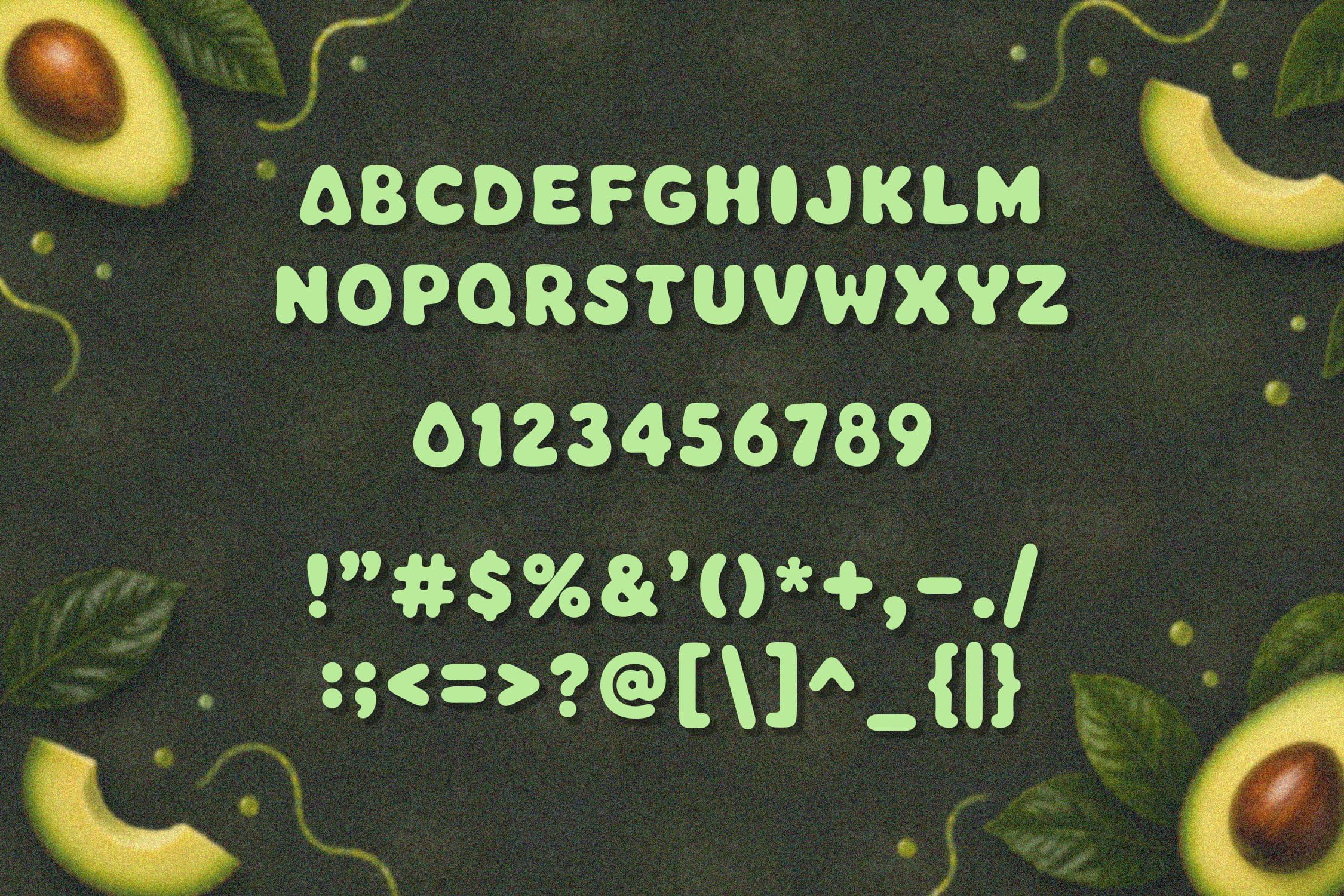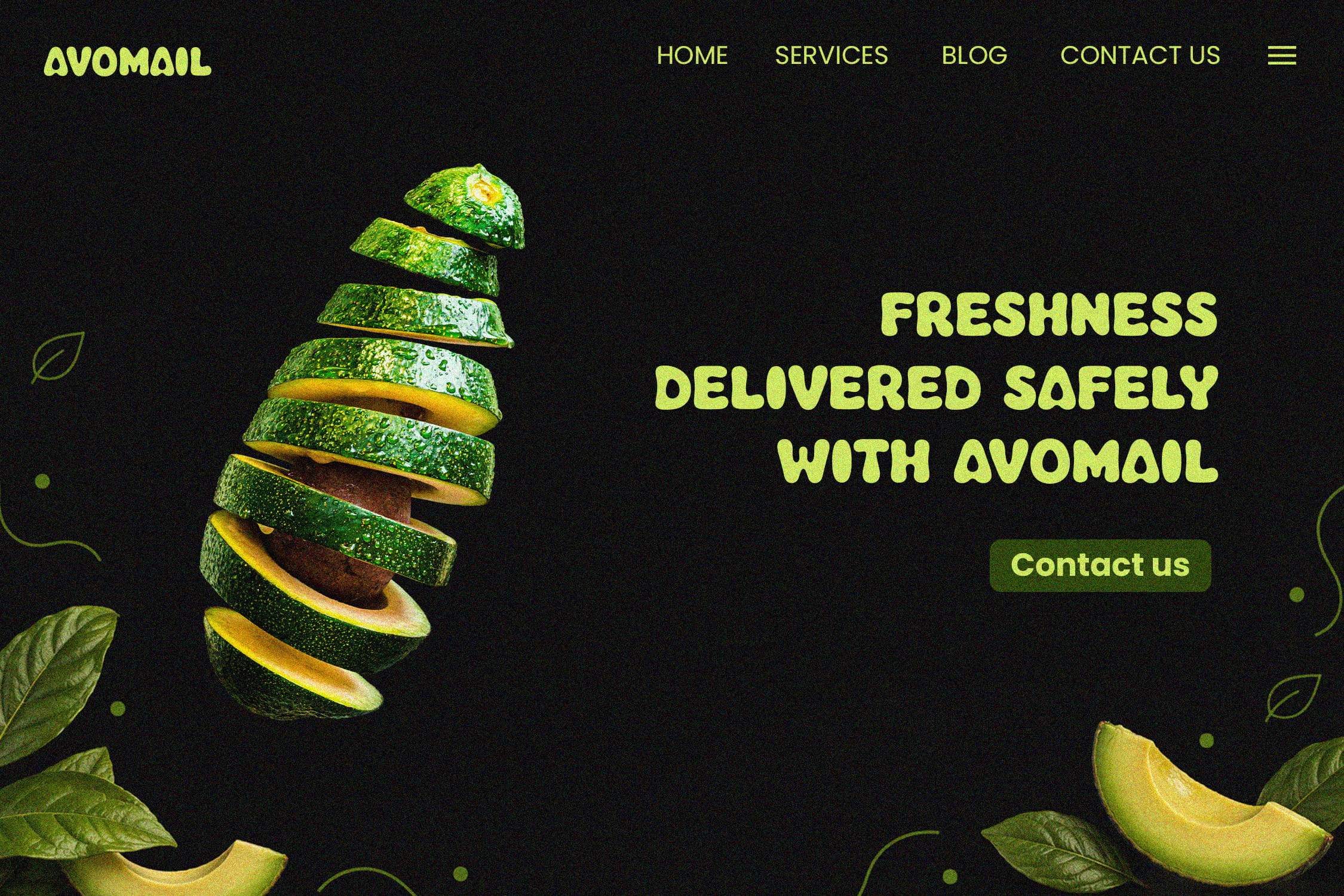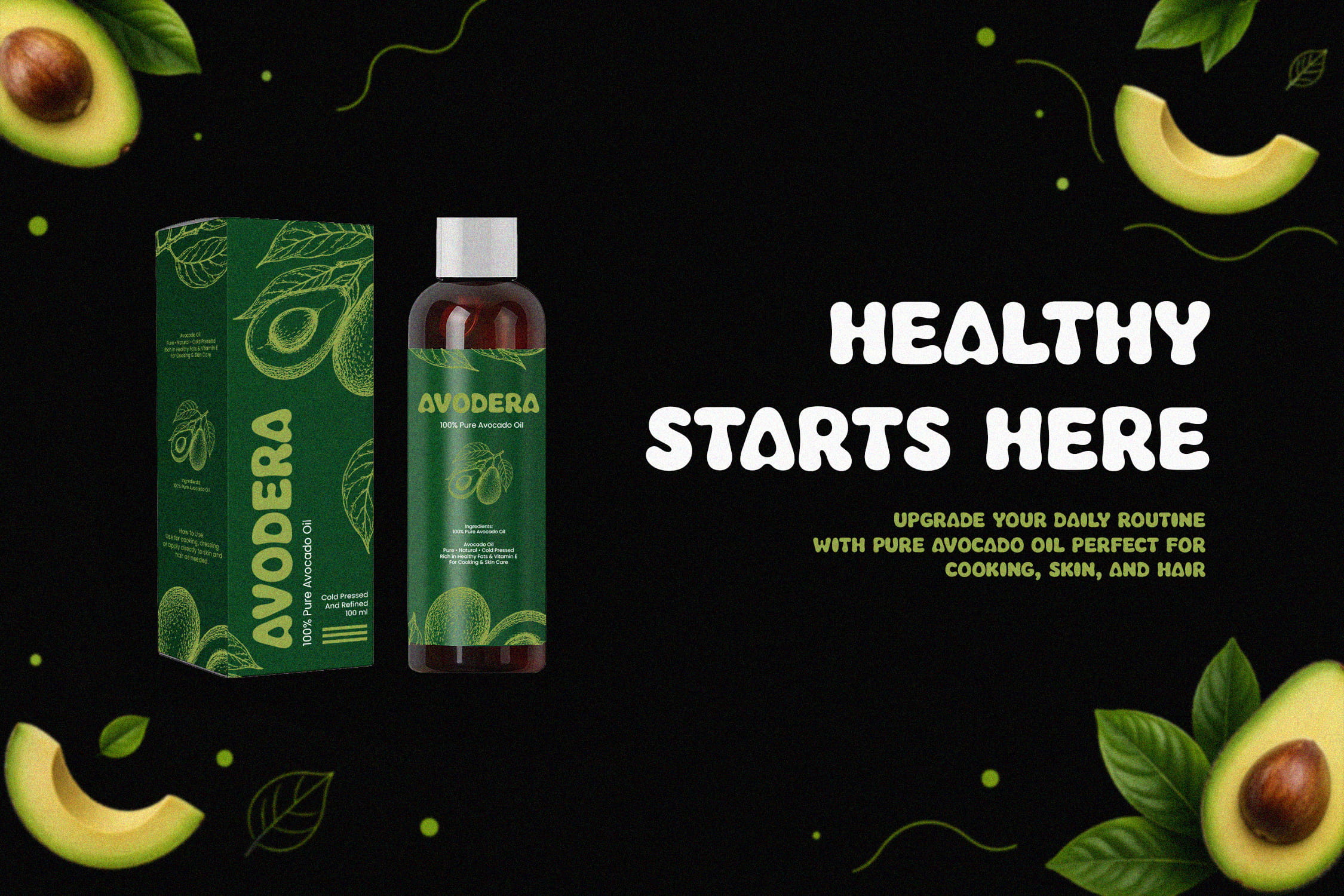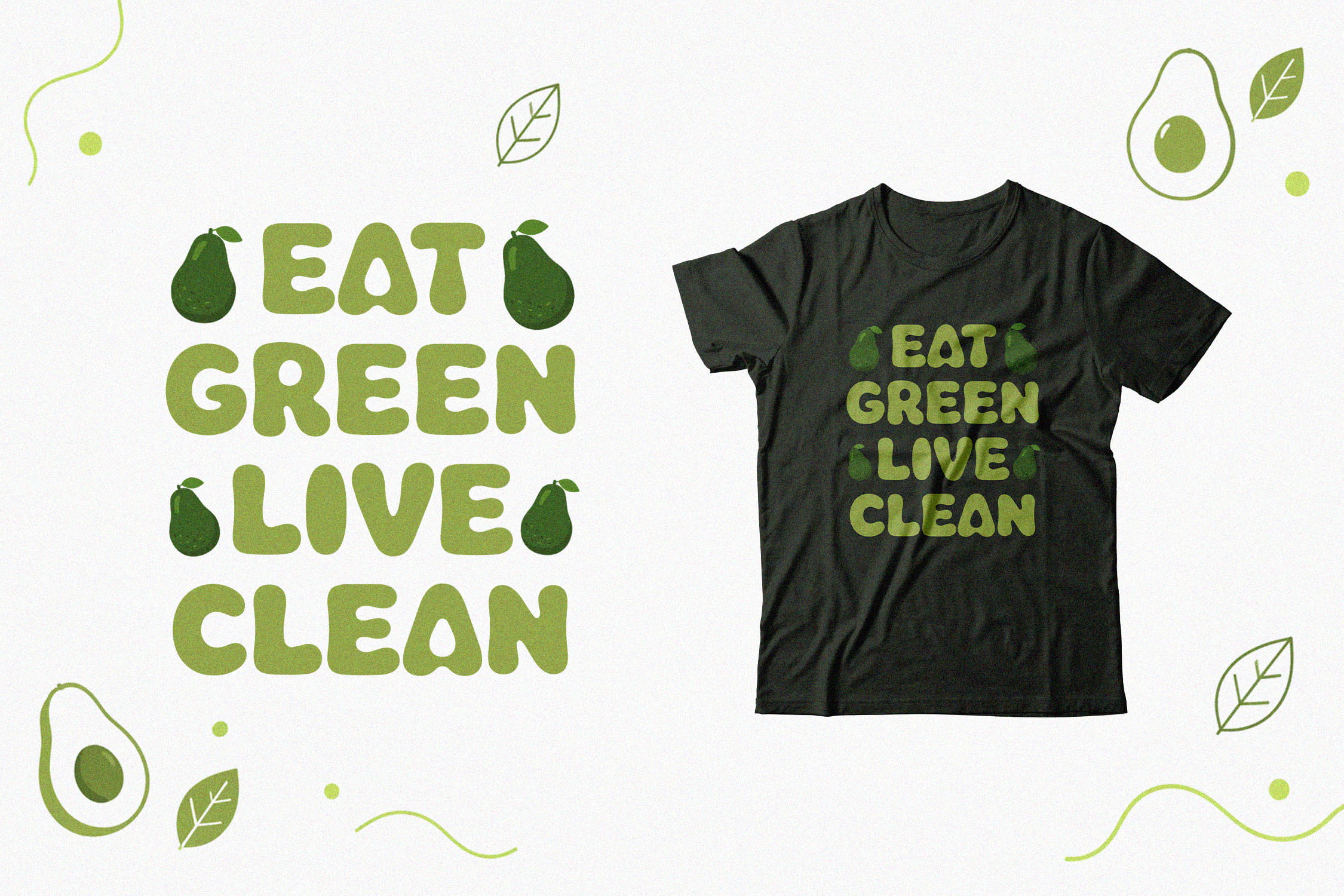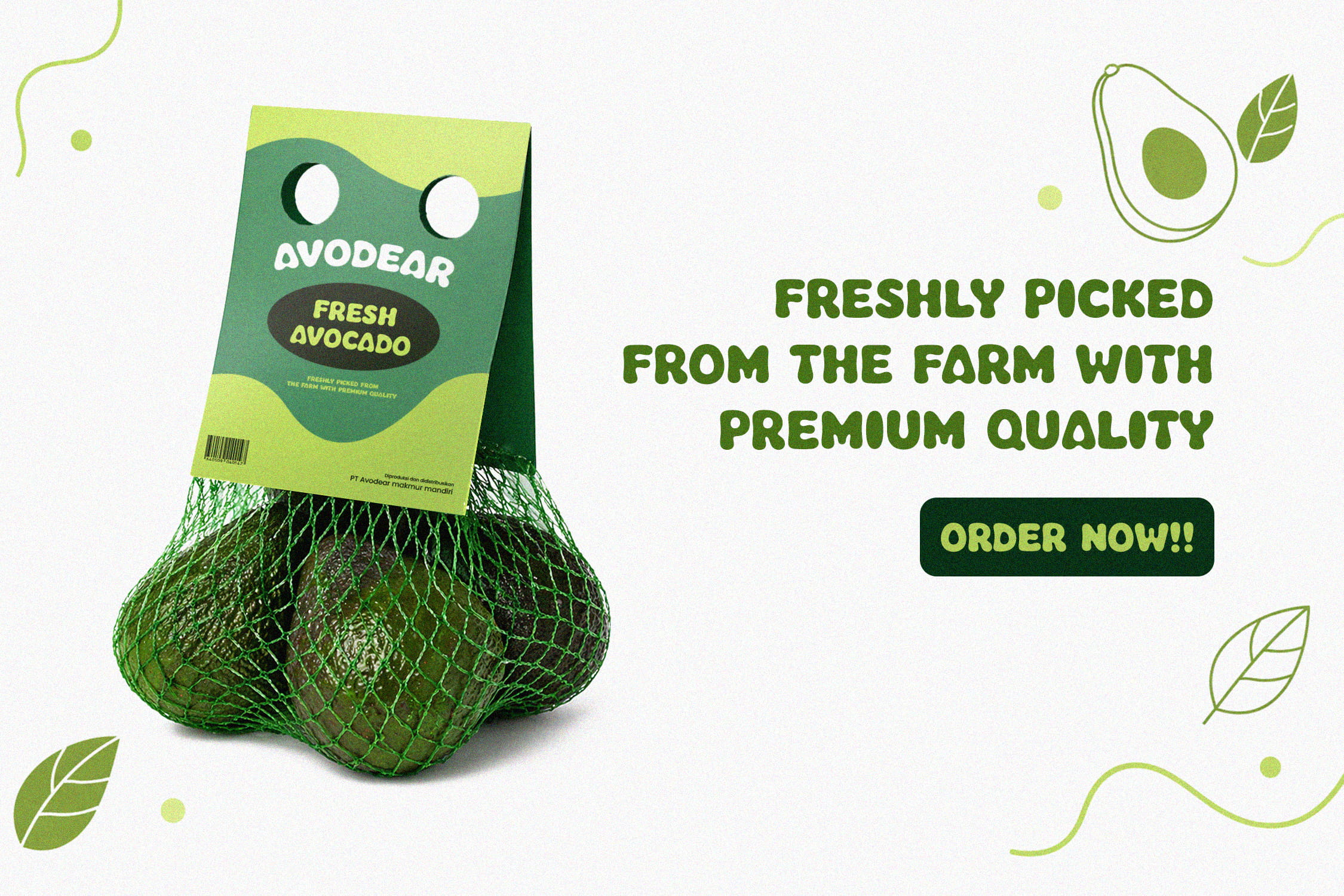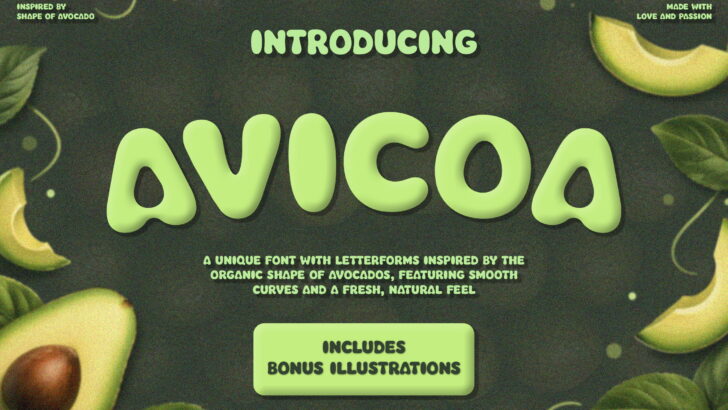
Creating a strong organic brand isn’t just about using green colors or adding leaf elements. One of the most overlooked, but powerful elements is typography.
The right font can instantly communicate natural, fresh, healthy, and eco friendly, before your audience even reads a single word.
In this article, we’ll break down how to create organic branding using avocado-inspired fonts, and how you can apply this approach to real design projects.
Why Organic Brands Need the Right Font
When people see an organic product, they expect it to feel:
- Natural
- Fresh
- Safe
- Honest
- Approachable
If your typography feels too sharp, rigid, or corporate, it creates a disconnect.
That’s why organic brands require fonts that visually communicate:
- Softness
- Simplicity
- Natural flow
- Human touch
Typography is not just decoration, it’s brand psychology.
Key Characteristics of Organic Fonts
Not all fonts work for organic branding. The most effective ones usually share these traits:
1. Rounded Shapes
Soft curves mimic natural forms found in fruits, plants, and nature.
This creates a friendly and approachable feel
2. Smooth Flow
Organic fonts avoid rigid geometry. Instead, they feel fluid and slightly imperfect, like something handmade.
This gives a natural and authentic vibe
3. Balanced Simplicity
Too decorative = hard to read
Too minimal = loses personality
The sweet spot is clean but expressive
4. Nature-Inspired Forms
Fonts inspired by real objects (like avocado shapes) instantly create visual storytelling.
This makes your brand more memorable
Case Study: Building an Organic Brand Identity
Let’s walk through a simple example of how an avocado inspired font can shape a full brand.
1. Website Hero Section
Using a rounded, soft font immediately sets the tone:
- Friendly
- Fresh
- Modern organic
A headline like:
“Freshness Delivered Safely”
Feels more inviting when paired with soft, organic letterforms.
2. Product Packaging
For products like:
- Avocado oil
- Organic skincare
- Healthy food
Typography plays a huge role in trust.
A rounded font:
- Feels safer
- Looks more natural
- Enhances premium perception
3. Merchandise & Lifestyle Branding
Statements like:
“Eat Green, Live Clean”
Work best with fonts that feel:
- Soft
- Positive
- Easy to read
This makes the design more relatable and wearable.
4. Fresh Product Packaging
For farm products or organic goods:
- Clean layout + natural font = high trust
Customers subconsciously associate:
rounded typography = healthier product
Introducing Avicoa – Organic Avocado Font
If you’re looking for a font that naturally fits all these characteristics, Avicoa was designed specifically for this purpose.
Avicoa is a display font inspired by the organic shape of avocados, featuring:
- Smooth rounded curves
- Soft, natural letterforms
- Friendly and modern personality
It’s perfect for:
- Organic branding
- Food & beverage packaging
- Skincare products
- Eco-friendly brands
- Lifestyle design
Why Avicoa Works So Well
Unlike generic rounded fonts, Avicoa has a distinct identity:
- Inspired by real organic shapes
- Designed for branding impact
- Balanced between playful and professional
This makes it versatile for both:
- Fun brands
- Premium organic products
When to Use Avocado-Inspired Fonts
You should consider this style when your brand is about:
- Health & wellness
- Organic food
- Natural skincare
- Eco-friendly lifestyle
- Sustainable products
Avoid using rigid or corporate fonts in these cases, they send the wrong message.
Final Thoughts
Organic branding is about feeling, not just visuals.
And typography is one of the fastest ways to communicate that feeling.
By using avocado-inspired fonts with:
- Rounded shapes
- Natural flow
- Soft personality
You can instantly make your brand feel:
- more human
- more trustworthy
- more appealing
Try Avicoa for Your Next Project
If you want to create organic branding that stands out, Avicoa is a strong starting point.